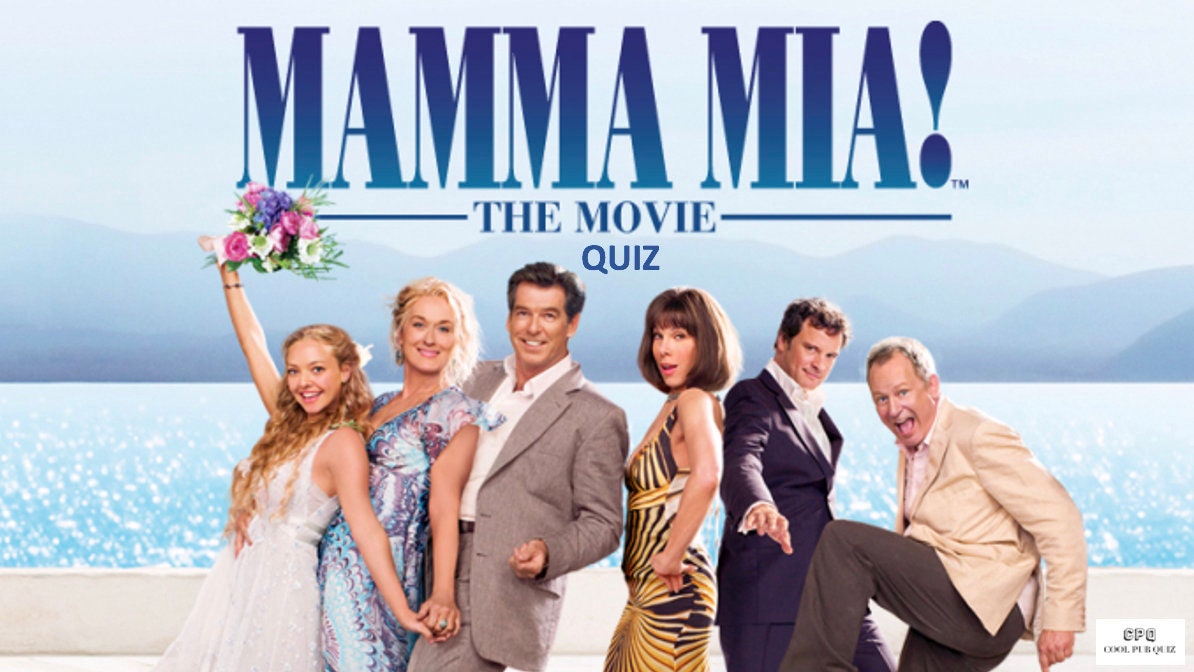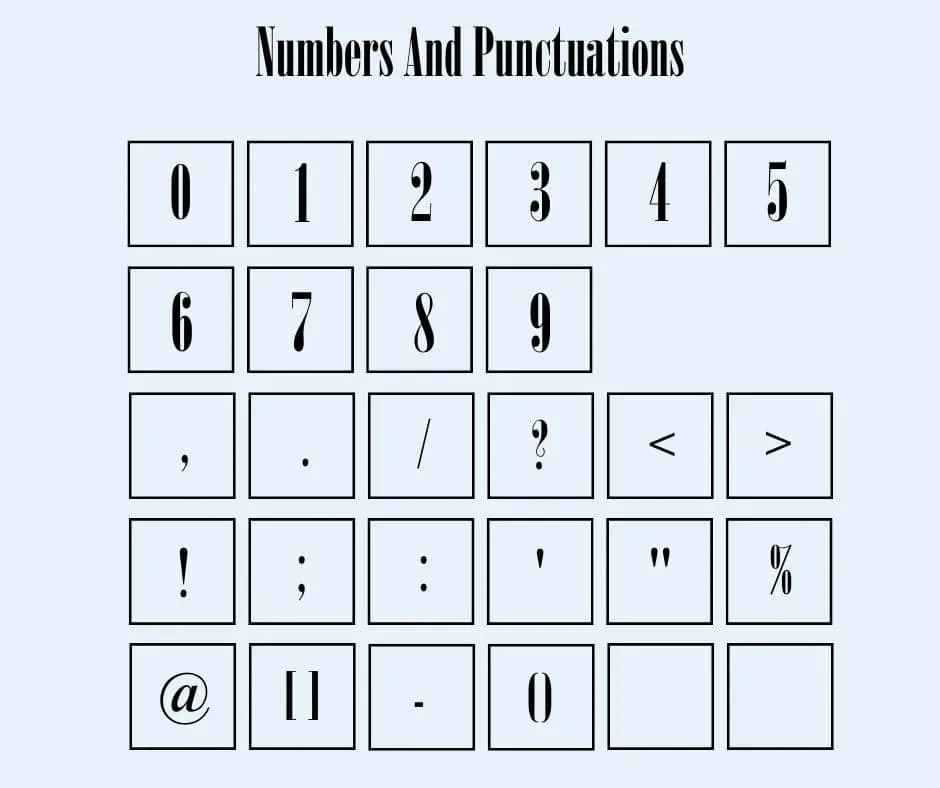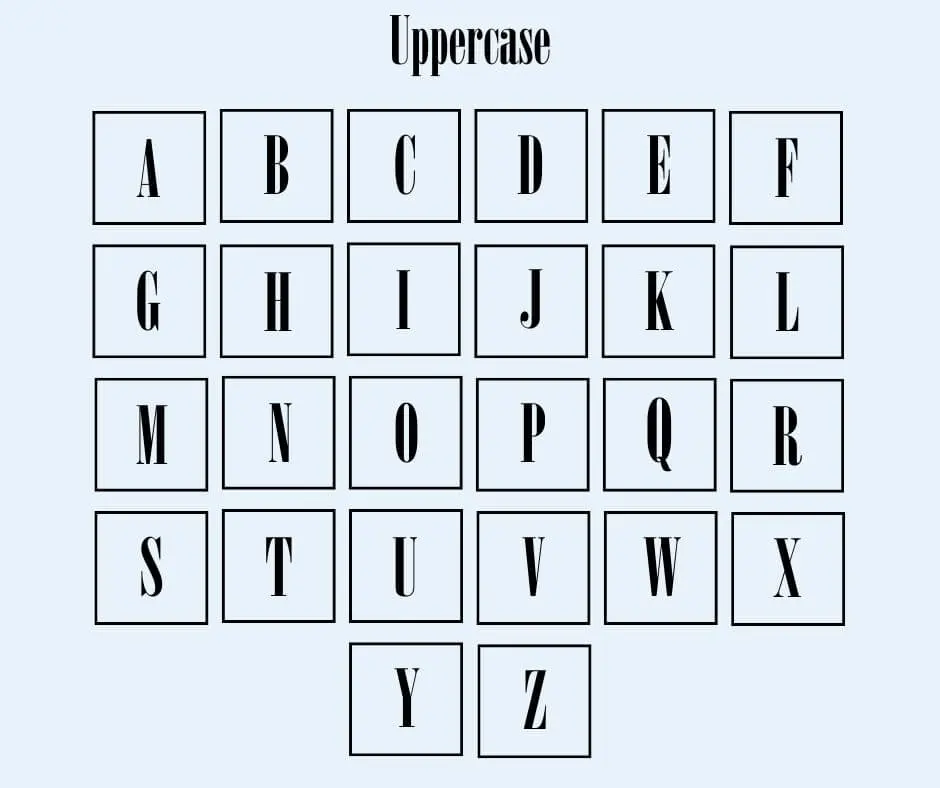
Mama Mia Font
Mama Mia Font - Font is a rendition of the timeless bodoni typeface, synonymous with elegance and sophistication. The font used for the film. Mamma mia font generator & download is available free at fontbolt. Try our text generator and create cool graphics for mamma mia font, then you can save the font image to your pc,. Is a 2008 british musical comedy film based on the 1999 musical of the same name. Based off of mamma mia, which was released as a romantic comedy film in 2008, these fonts were inspired by its. Is a 2008 british musical comedy film based on the 1999 musical of the same name. A typeface designed for movies known as mamma mia font. Dressed typically in sapphire blues and mediterranean whites to.
Based off of mamma mia, which was released as a romantic comedy film in 2008, these fonts were inspired by its. Dressed typically in sapphire blues and mediterranean whites to. Try our text generator and create cool graphics for mamma mia font, then you can save the font image to your pc,. Font is a rendition of the timeless bodoni typeface, synonymous with elegance and sophistication. The font used for the film. Mamma mia font generator & download is available free at fontbolt. Is a 2008 british musical comedy film based on the 1999 musical of the same name. Is a 2008 british musical comedy film based on the 1999 musical of the same name. A typeface designed for movies known as mamma mia font.
Is a 2008 british musical comedy film based on the 1999 musical of the same name. Is a 2008 british musical comedy film based on the 1999 musical of the same name. A typeface designed for movies known as mamma mia font. Based off of mamma mia, which was released as a romantic comedy film in 2008, these fonts were inspired by its. Dressed typically in sapphire blues and mediterranean whites to. The font used for the film. Font is a rendition of the timeless bodoni typeface, synonymous with elegance and sophistication. Mamma mia font generator & download is available free at fontbolt. Try our text generator and create cool graphics for mamma mia font, then you can save the font image to your pc,.
Is a 2008 british musical comedy film based on the 1999 musical of the same name. Try our text generator and create cool graphics for mamma mia font, then you can save the font image to your pc,. Based off of mamma mia, which was released as a romantic comedy film in 2008, these fonts were inspired by its. A.
Is a 2008 british musical comedy film based on the 1999 musical of the same name. Is a 2008 british musical comedy film based on the 1999 musical of the same name. Try our text generator and create cool graphics for mamma mia font, then you can save the font image to your pc,. Based off of mamma mia, which.
Font is a rendition of the timeless bodoni typeface, synonymous with elegance and sophistication. Is a 2008 british musical comedy film based on the 1999 musical of the same name. Is a 2008 british musical comedy film based on the 1999 musical of the same name. The font used for the film. Try our text generator and create cool graphics.
Is a 2008 british musical comedy film based on the 1999 musical of the same name. Font is a rendition of the timeless bodoni typeface, synonymous with elegance and sophistication. The font used for the film. Is a 2008 british musical comedy film based on the 1999 musical of the same name. A typeface designed for movies known as mamma.
Dressed typically in sapphire blues and mediterranean whites to. Try our text generator and create cool graphics for mamma mia font, then you can save the font image to your pc,. Font is a rendition of the timeless bodoni typeface, synonymous with elegance and sophistication. Is a 2008 british musical comedy film based on the 1999 musical of the same.
The font used for the film. Based off of mamma mia, which was released as a romantic comedy film in 2008, these fonts were inspired by its. Try our text generator and create cool graphics for mamma mia font, then you can save the font image to your pc,. Font is a rendition of the timeless bodoni typeface, synonymous with.
Is a 2008 british musical comedy film based on the 1999 musical of the same name. Try our text generator and create cool graphics for mamma mia font, then you can save the font image to your pc,. Is a 2008 british musical comedy film based on the 1999 musical of the same name. A typeface designed for movies known.
Try our text generator and create cool graphics for mamma mia font, then you can save the font image to your pc,. Is a 2008 british musical comedy film based on the 1999 musical of the same name. Font is a rendition of the timeless bodoni typeface, synonymous with elegance and sophistication. Dressed typically in sapphire blues and mediterranean whites.
Dressed typically in sapphire blues and mediterranean whites to. Is a 2008 british musical comedy film based on the 1999 musical of the same name. The font used for the film. Try our text generator and create cool graphics for mamma mia font, then you can save the font image to your pc,. A typeface designed for movies known as.
The Font Used For The Film.
Dressed typically in sapphire blues and mediterranean whites to. Based off of mamma mia, which was released as a romantic comedy film in 2008, these fonts were inspired by its. Is a 2008 british musical comedy film based on the 1999 musical of the same name.